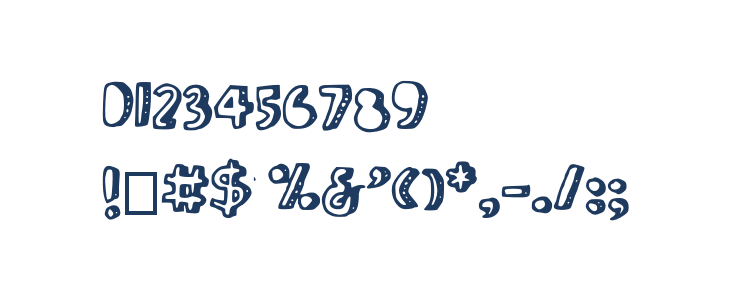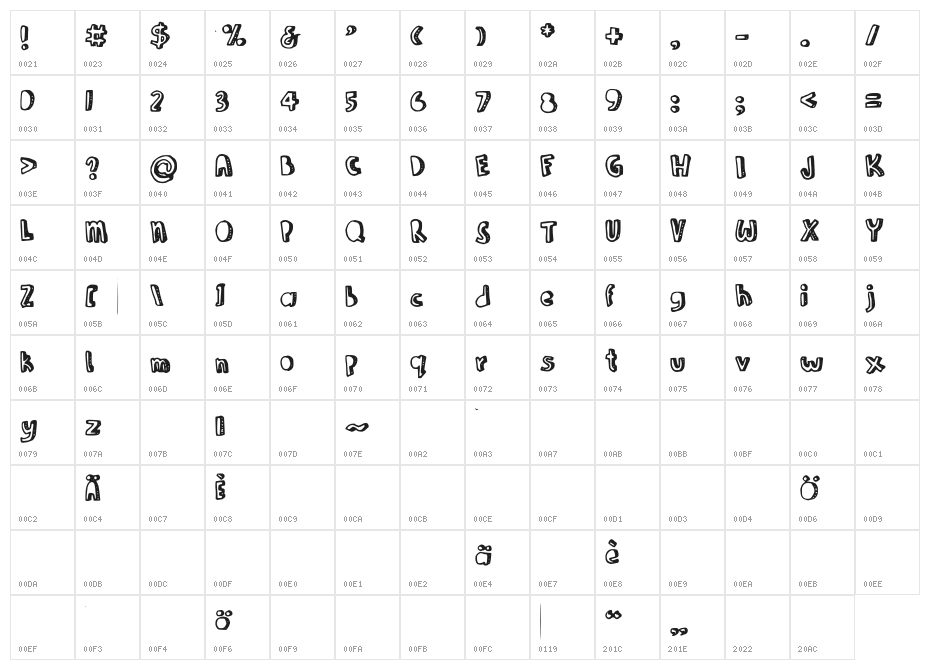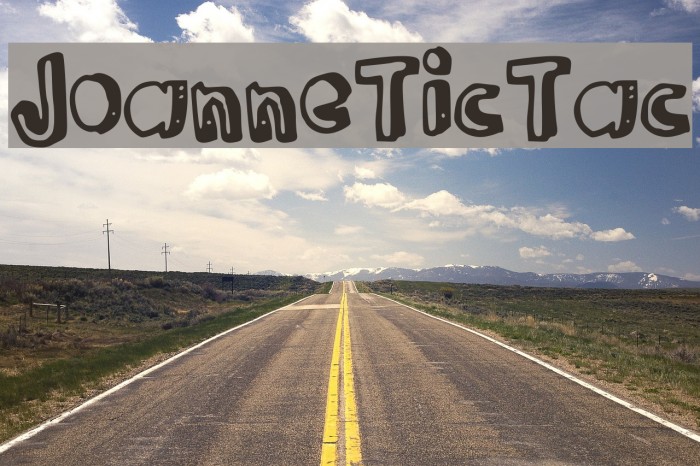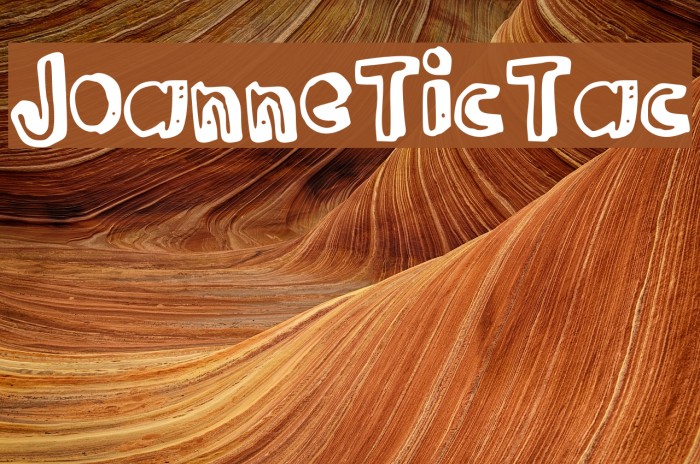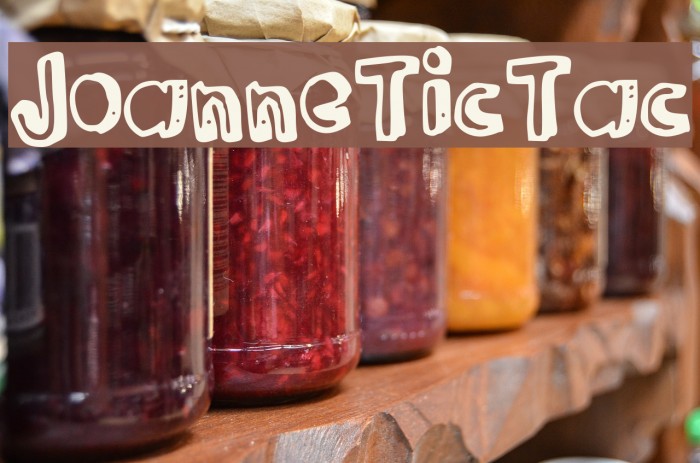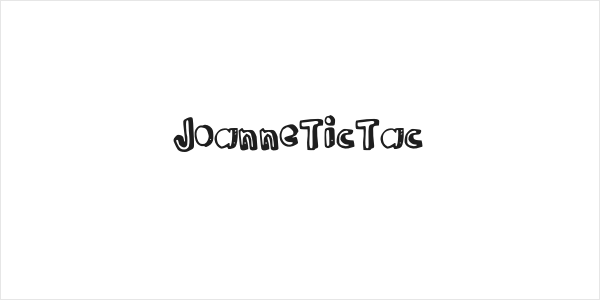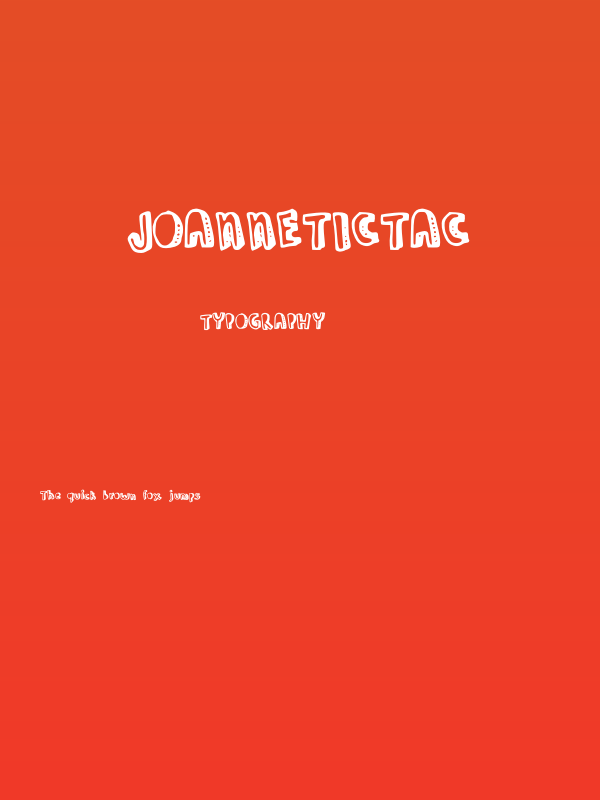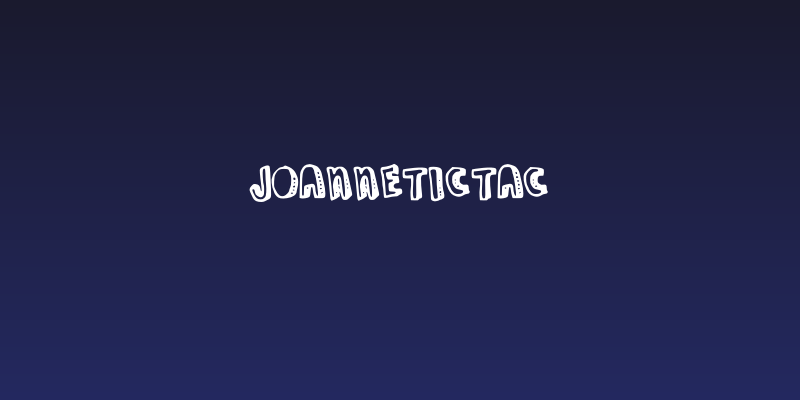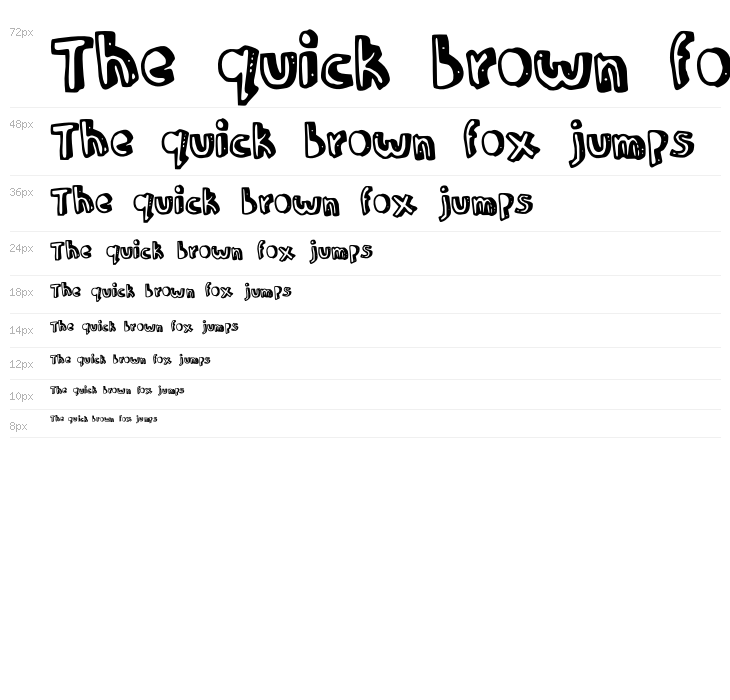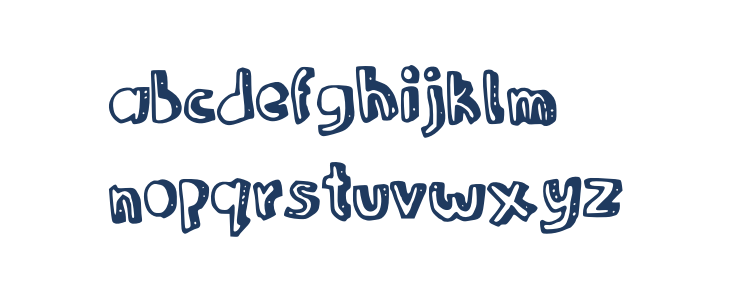
JoanneTicTac Font
JoanneTicTac Description
This playful and whimsical font features bold, rounded characters with a unique dotted pattern inside each letter, giving it a lively and energetic feel. The uppercase and lowercase letters maintain a consistent style, with slightly exaggerated curves and a hand-drawn appearance. The numbers and special characters follow the same design principles, ensuring a cohesive look across all elements. The font's decorative style makes it stand out, perfect for projects that require a fun and engaging visual impact.
Overall StylePlayful, Whimsical
Proposed ProjectsIdeal for children's books, playful branding, party invitations, and creative posters.